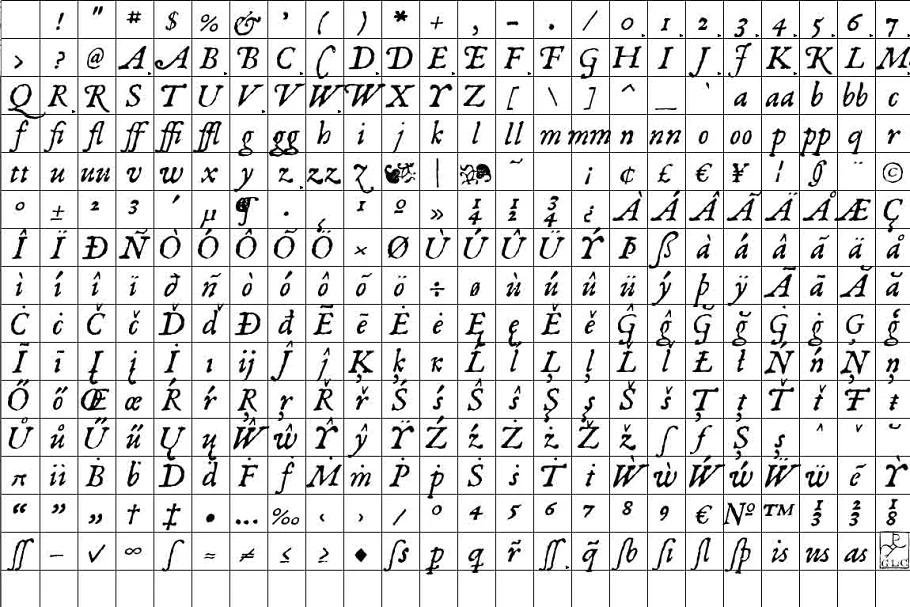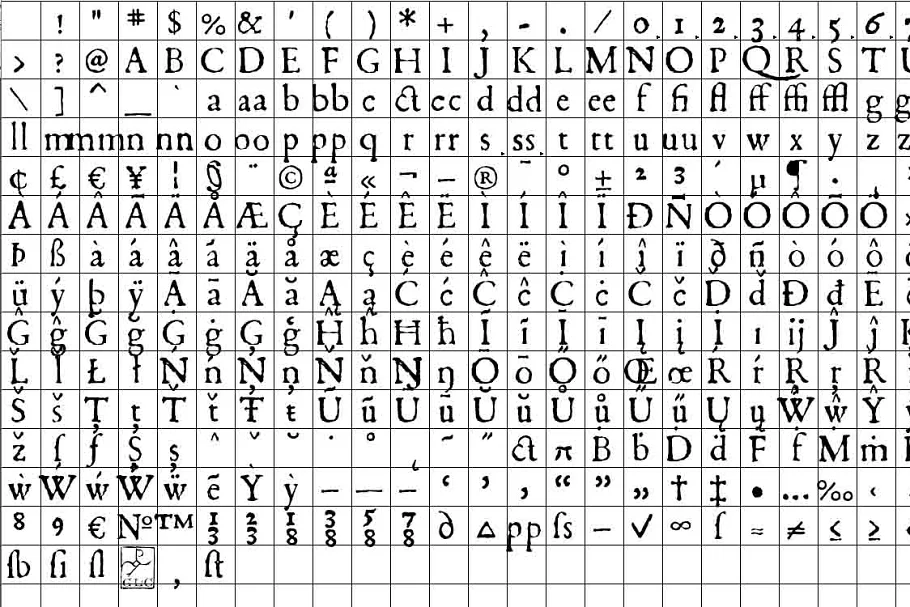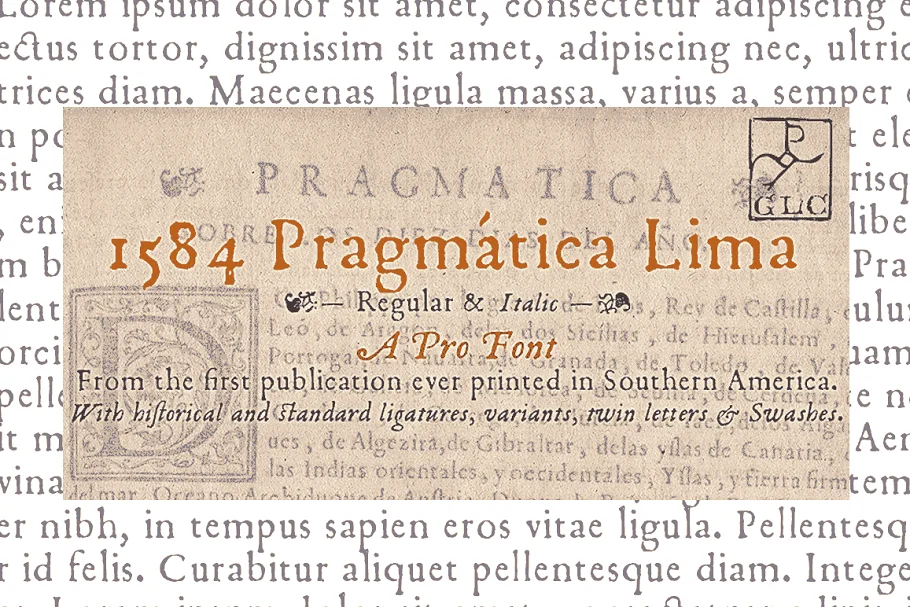
About the 1584 Pragmatica Lima Family OTF Font
This family was created inspired from the set of 1584 Pragmatica Lima Family OTF Font face used in Lima (Peru) by Antonio Ricardo to print in 1584 the first publication ever printed in Southern America: a four-page leaflet in Spanish untitled “Pragmatica sanction” with the information about the new Georgian calendar of 1582 who was not yet communicated to the colonies.
In our two styles (Regular & Italic), font face, kernings, and spaces are as close as possible the same as in the original.
This Pro font is covering Western, Eastern, and Central European languages (including Celtic) Baltic, and Turkish, with standard and “s long” ligatures in each of the two styles. A,B,D,E,F,M,N,P,R,V,W swashed capitals in the italic style.